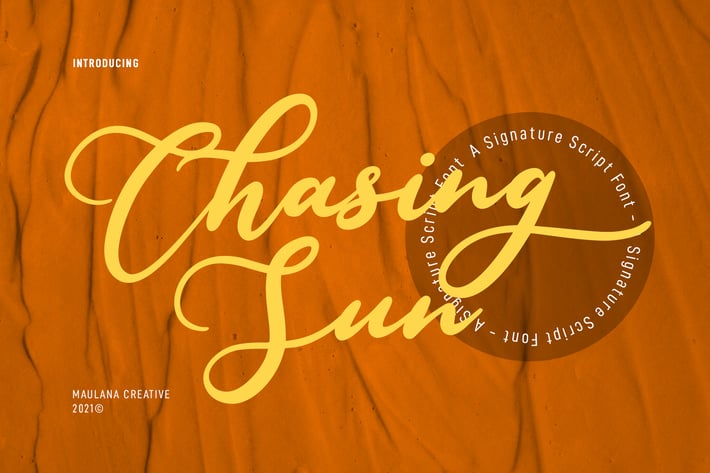
Chasing Sun Script Font
Chasing Sun is a modern romantic script font. With high contrast stroke, fun character with some of ligatures. To give you an extra creative work. Chasing Sun font support multilingual more than 100+ language. This font is good for logo design, Social media, Movie Titles, Books Titles, a short text even a long text letter and good for your secondary text font with sans or serif. Make a stunning work with Chasing Sun font.